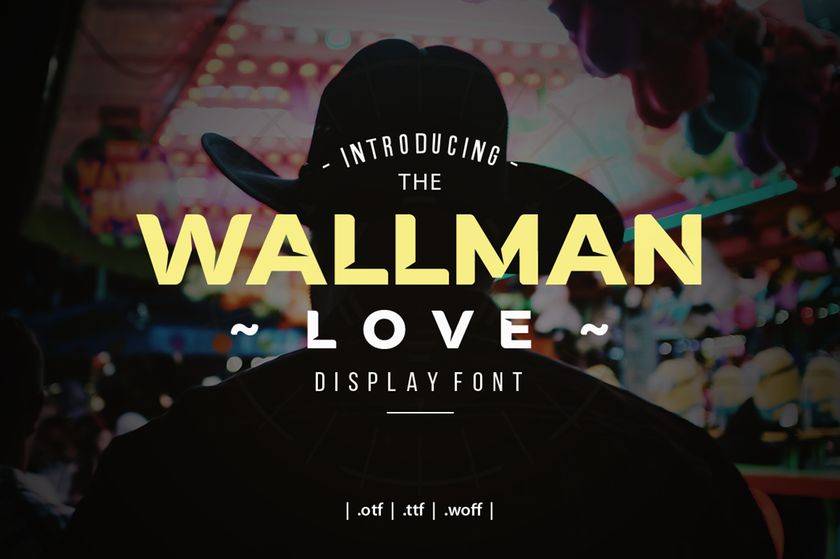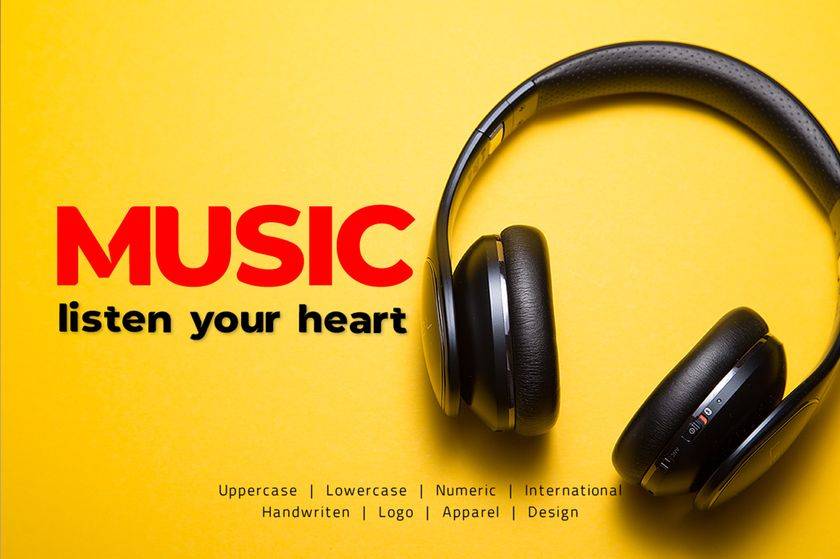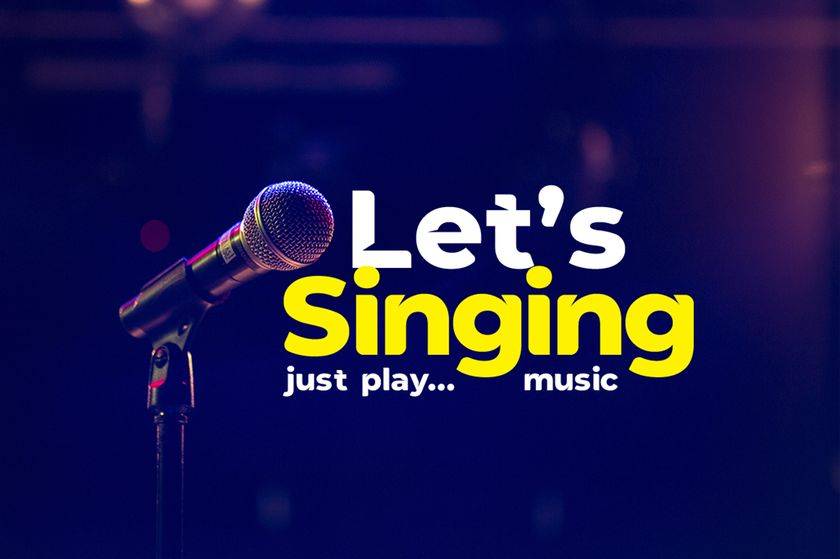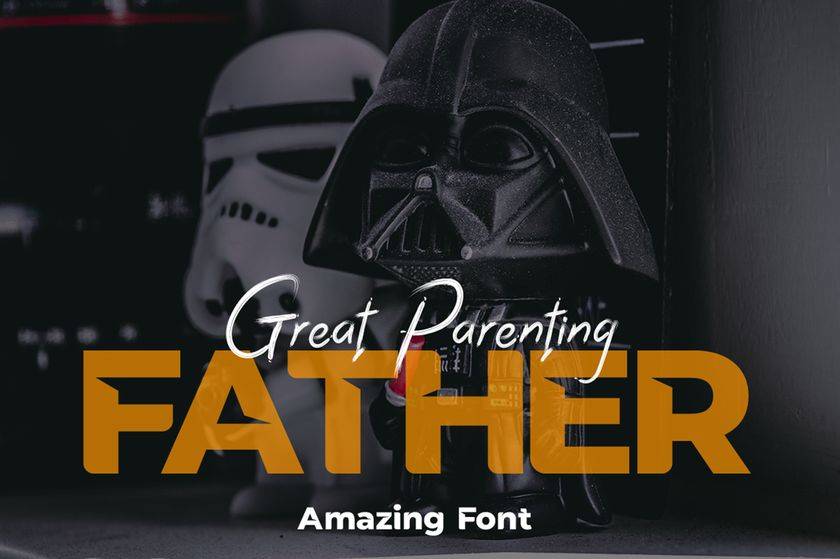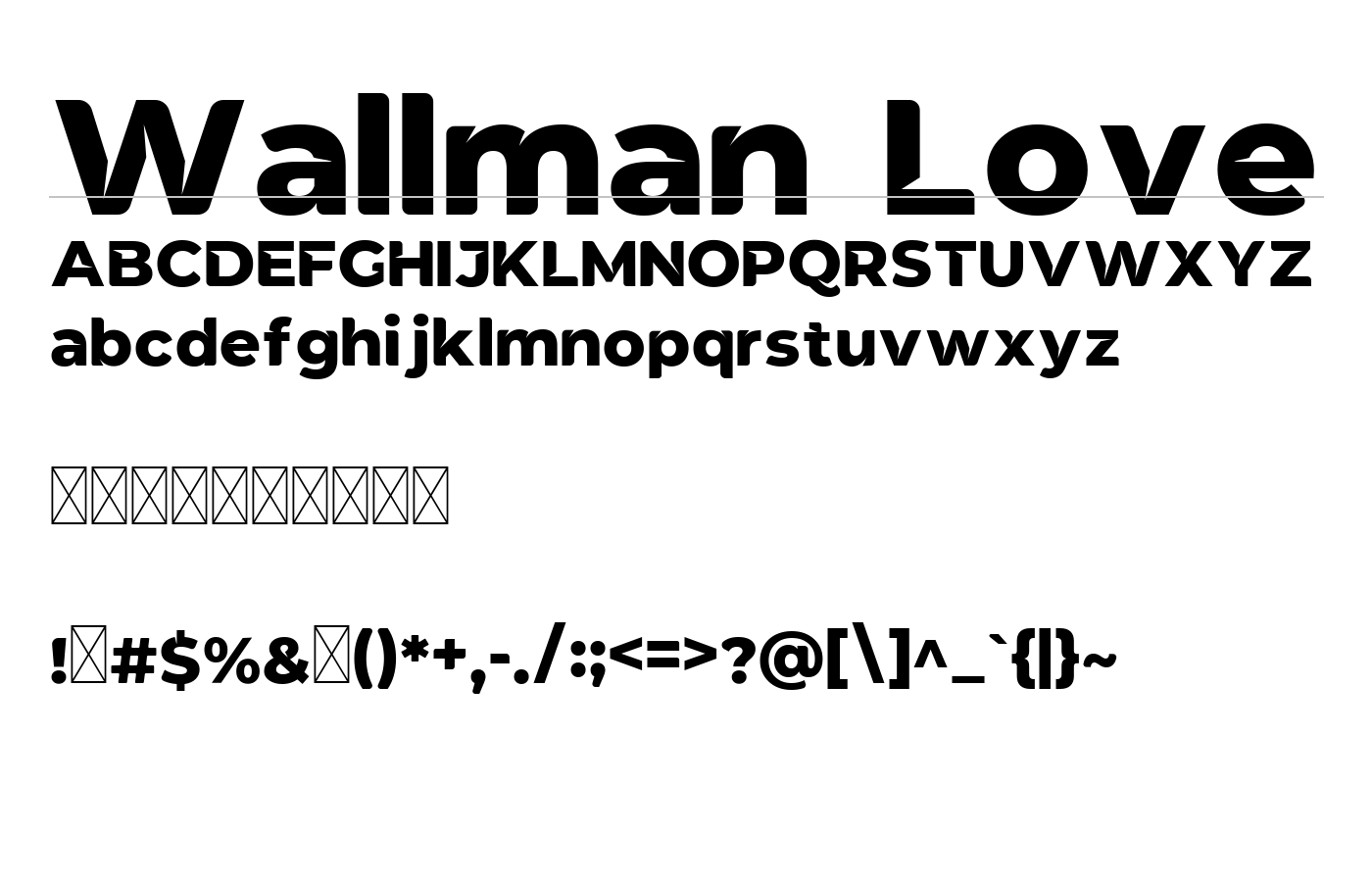
Wallman Love is a bold sans serif font with a strong, modern presence characterized by its thick strokes and slightly condensed letterforms. It features a smooth, geometric style with high contrast between the straight and curved elements, creating an energetic and dynamic feel that works well for headlines, branding, and display purposes. This font is ideal for projects seeking a confident and contemporary look, such as logos, posters, and fashion or lifestyle brands.
Wallman Love Font
About Wallman Love Font
| Font family | Wallman Love Font |
| Designer | Joko Triwijayanto |